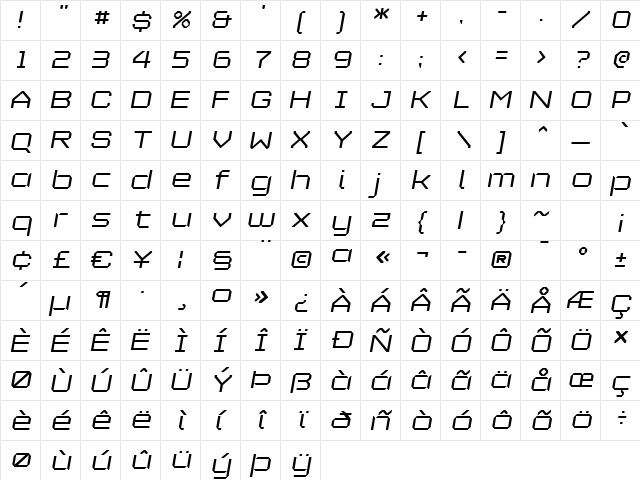
Maetl LightOblique
| Foundry | YouWorkForThem |
| Designer | Michael Cina |
Design Context for Maetl Typeface
Maetl offers clean, dependable letterforms without strong stylistic allegiance, making it a practical choice for designers who need flexibility. The slanted form adds forward momentum and visual energy. Its slender proportions lend an understated elegance to any composition.
Pro Tip: Try Maetl for annotation and caption copy alongside an upright companion — the contrast in angle creates a dynamic but ordered typographic system.